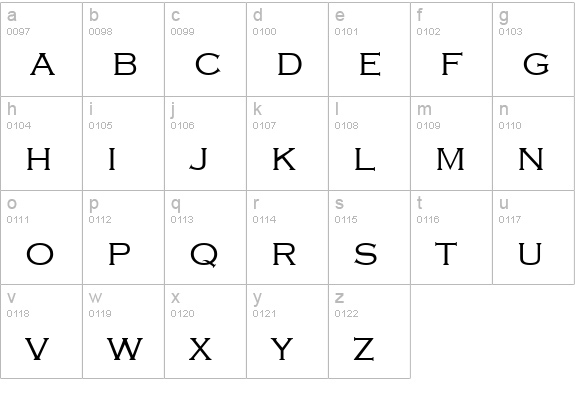
Copperplate Gothic Light Font Details
Copperplate Gothic Light is a refined, elegant variant in the Copperplate typeface family \xE2\x80\x94 well suited to elegant body text, refined sub-headings, and luxury branding.
Copperplate Gothic Light font is a classic and elegant typeface that exudes sophistication and refinement. With its thin strokes and distinct serifs, this font is perfect for adding a touch of timeless beauty to any design project. Whether you are creating invitations, branding materials, or signage, Copperplate Gothic Light font will elevate your work with its graceful and distinguished appearance. The best part is that Copperplate Gothic Light font is available for free download at FontsMarket.com. You can easily access this exquisite font and enhance your projects with its exquisite charm and sophistication. Don't miss out on the opportunity to add a touch of elegance to your designs with Copperplate Gothic Light font, now easily accessible for free at FontsMarket.com.